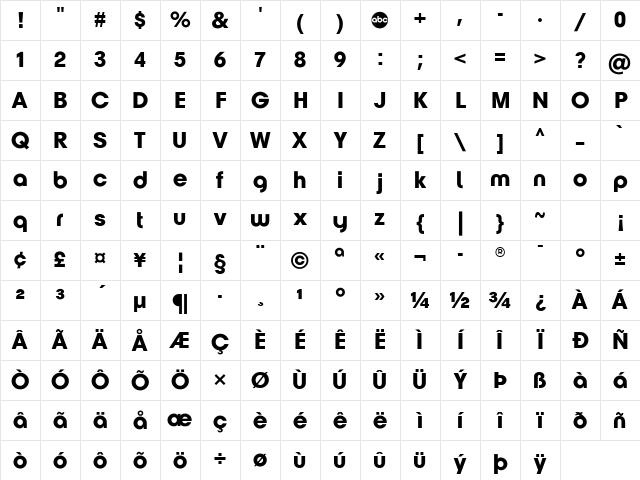
ABC Logo Bold
Design Context for ABC Logo
ABC Logo is a composed and adaptable typeface that performs quietly and consistently across a wide range of design contexts. Its bold stroke weight gives it real presence on the page.
Pro Tip: Use ABC Logo in both headline and body roles to test its range before committing to a single application.